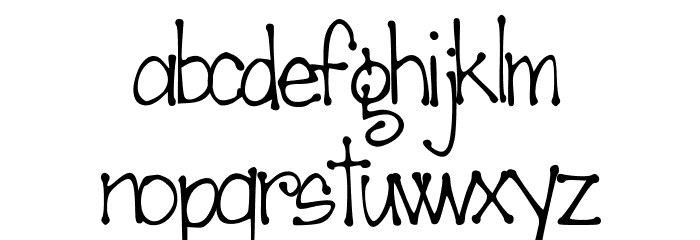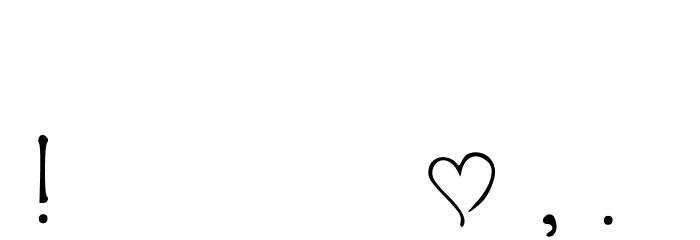
I*Scrapbooking Font
This playful and whimsical font features a handwritten style with a casual and friendly appearance. The letters are slightly irregular, giving it a charming, informal look. The strokes are consistent in width, with rounded edges that add to its approachable feel. The font includes both uppercase and lowercase letters, numbers, and a selection of special characters, making it versatile for various design needs. Its unique character is perfect for projects that require a personal touch, such as scrapbooking, greeting cards, or children's book illustrations.
- Proposed Projects: Ideal for scrapbooking, greeting cards, children's books, and personal projects.
- Category: Handwritten
- Overall Style: Whimsical
- Use Case: Headlines, Logos, Decorative text